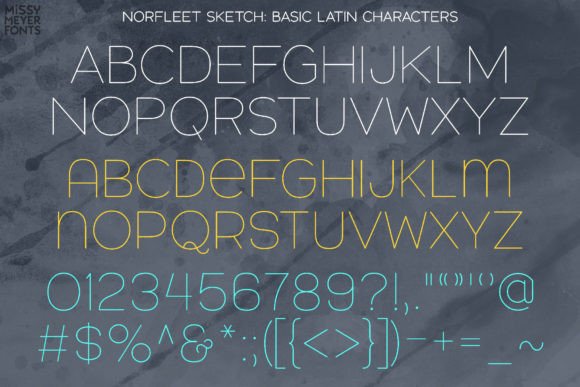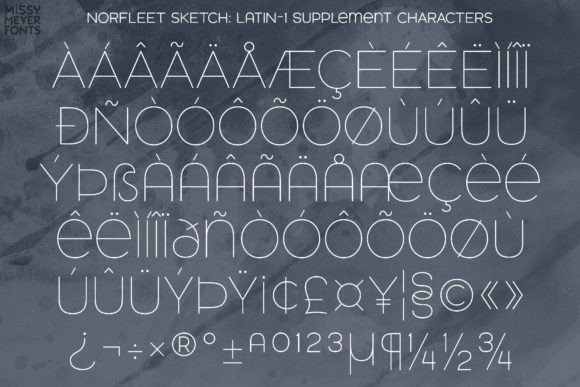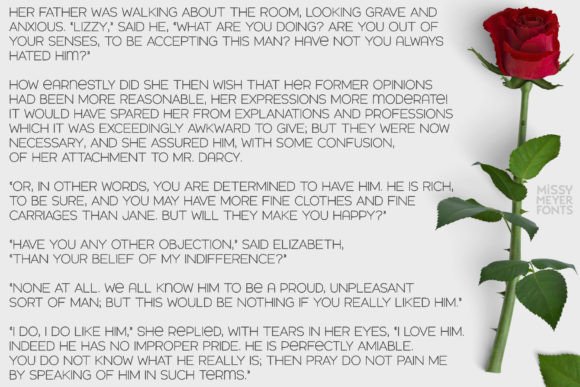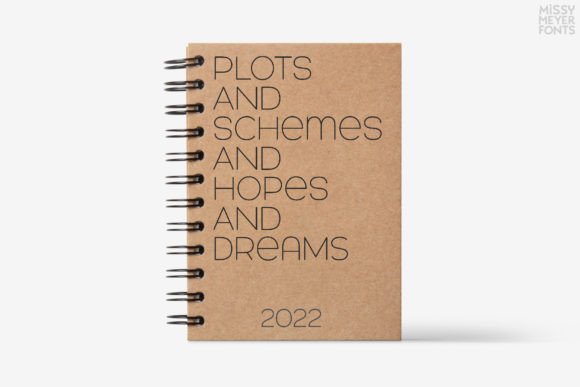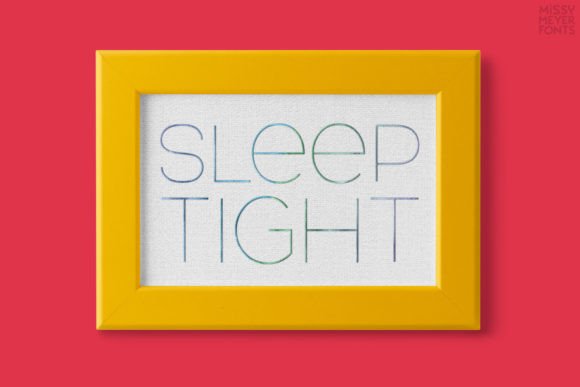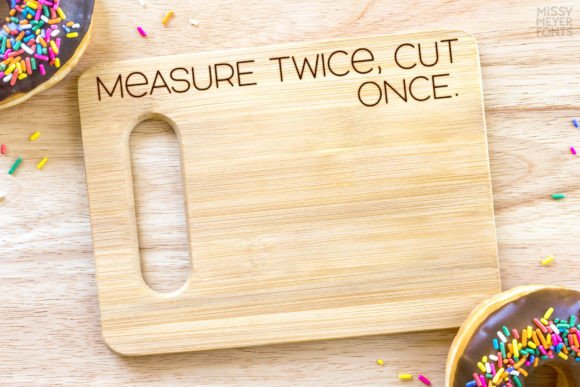
Introduction to Norfleet Sketch (single Line) Font
Have you ever been stuck on a design project, searching for the perfect font to bring your creative vision to life? That’s where the Norfleet Sketch (single Line) Font comes in – a game-changing design resource that’s sure to elevate your next project. With its clean, elegant sans-serif style and smooth curves, this font is perfect for designers looking to add a touch of sophistication to their work.
So, what sets the Norfleet Sketch (single Line) Font apart from other fonts on the market? Its unique single-line design, which allows for seamless use in a variety of design programs, is just the beginning. With its modern wide stance and minimal nodes, this font is the perfect choice for designers who want to create clean, sharp designs that truly stand out.
Key Features of Norfleet Sketch (single Line) Font
- Unique, hand-drawn design with a single line sketch style, perfect for creative projects.
- High-quality font with transparent background, ideal for graphic designers and artists.
- Perfect for creating distinctive and creative designs, adding a personal touch to any project.
Honest Review: Norfleet Sketch (single Line) Font
The first thing that caught my attention was the transparent background of this font, which makes it super versatile for use on any background image. ✨
Here are some things that I think work well with this font:
- Unique line sketch style that adds a personal touch to any design
- High quality and clear typography
- Easy to use, even for designers with limited experience
However, I did encounter a few limitations with this font:
- Only a single line font, which might not be suitable for complex text
- No bold or italic variations available
Overall, I was quite impressed with the Norfleet Sketch (single Line) Font. It’s a great design resource for those looking to add a touch of hand-drawn elegance to their work. While it’s not without its limitations, I think it’s a high quality font that’s definitely worth considering for your next creative project.
Common Use Cases for Norfleet Sketch (single Line) Font
The Norfleet Sketch (single Line) Font is perfect for a variety of design projects, including:
- Quotes and sayings
- Illustrations and doodles
- Custom titles and headings